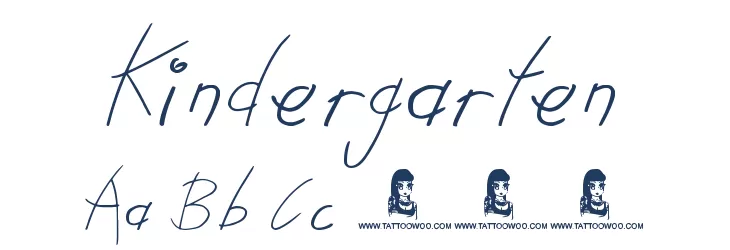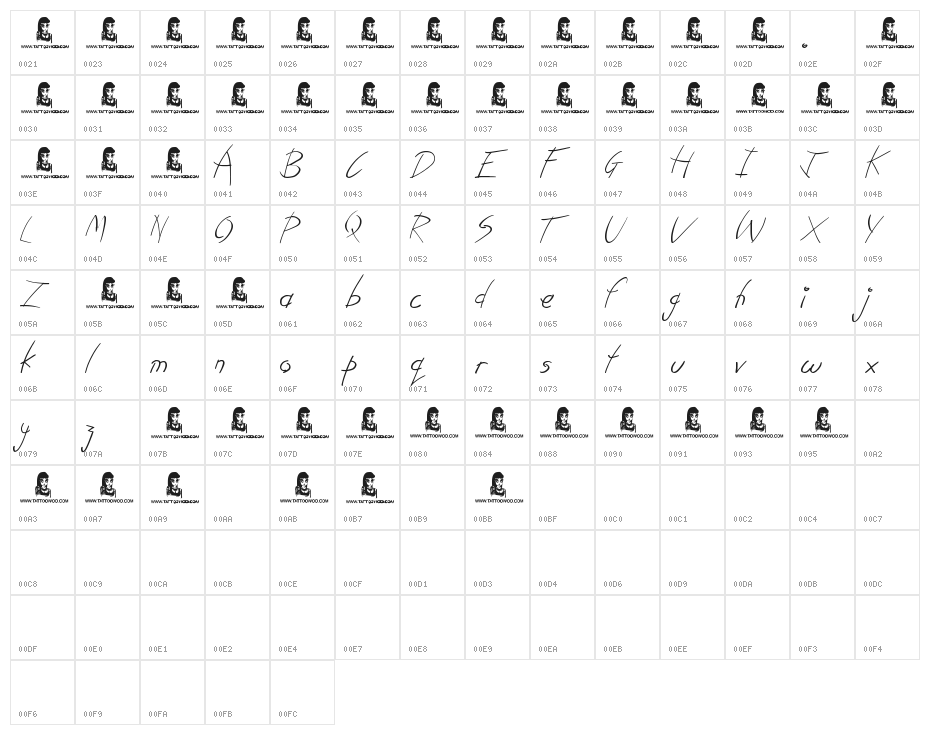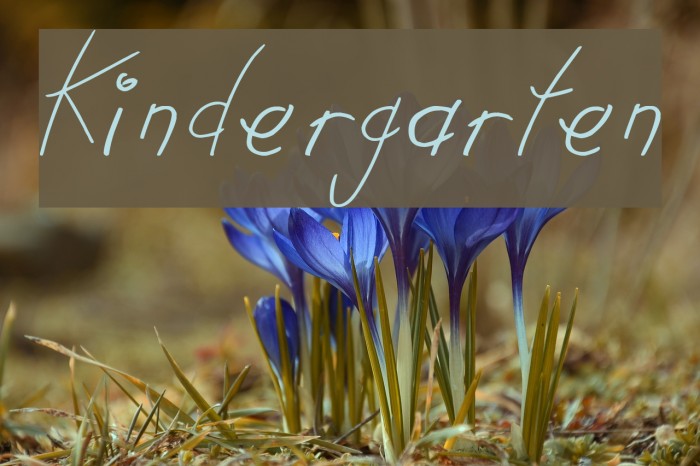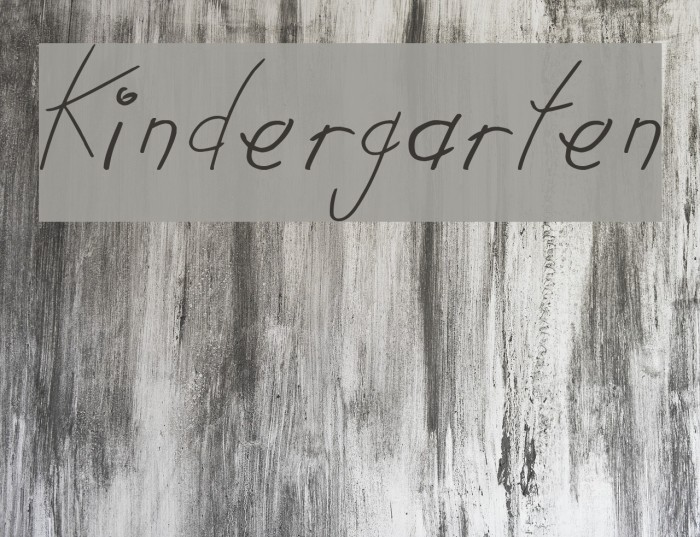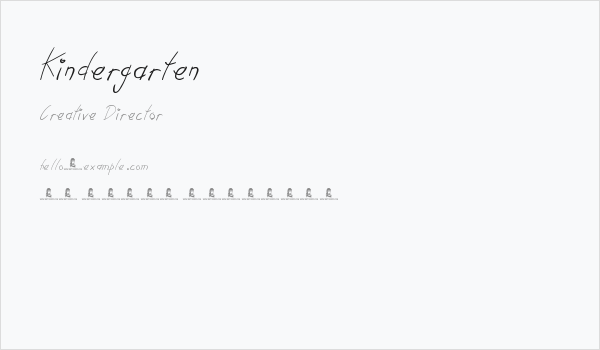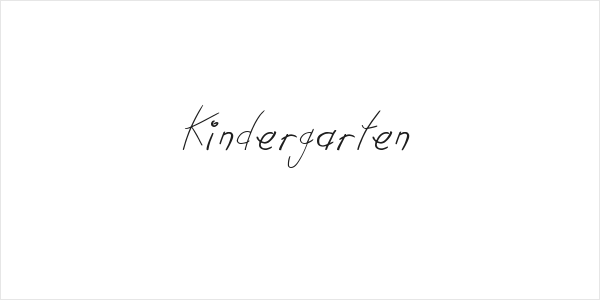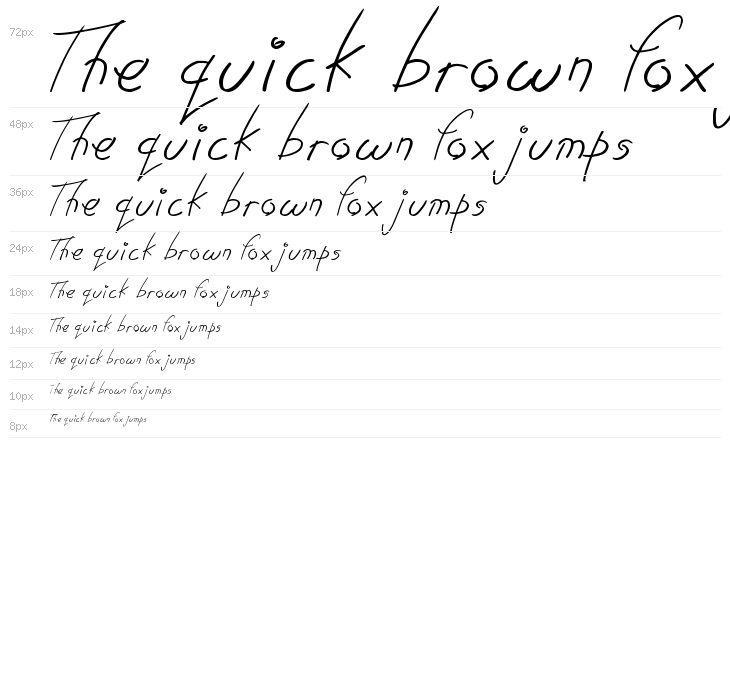
Kindergarten Font
Kindergarten Description
This playful and whimsical font captures the essence of a child's handwriting, characterized by its irregular strokes and informal style. The letters are unevenly spaced, with varying heights and angles, giving it a lively and spontaneous appearance. The uppercase and lowercase letters maintain a consistent style, with a slight slant that adds to the casual feel. The font includes numbers and a selection of special characters, all following the same hand-drawn aesthetic. Its unique charm makes it suitable for projects that require a touch of creativity and fun.
| Use Case | Headlines, Creative projects, Educational materials |
| Proposed Projects | Ideal for children's books, educational materials, playful branding, and creative invitations. |